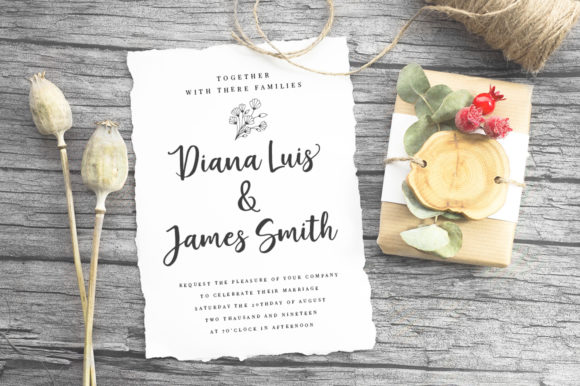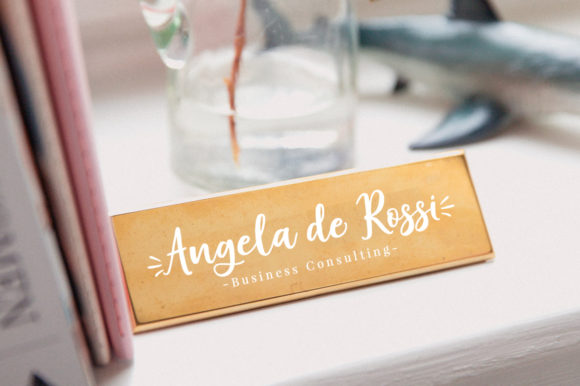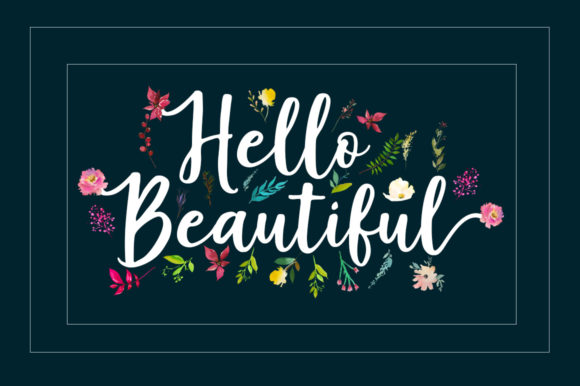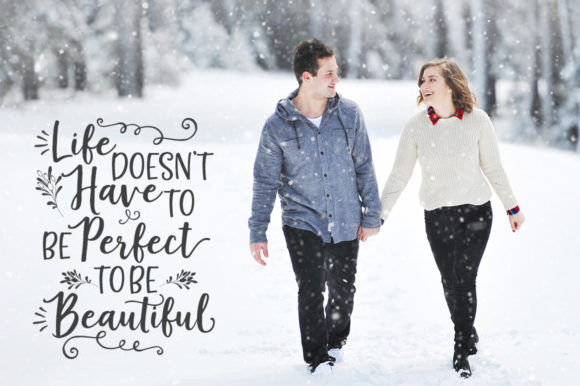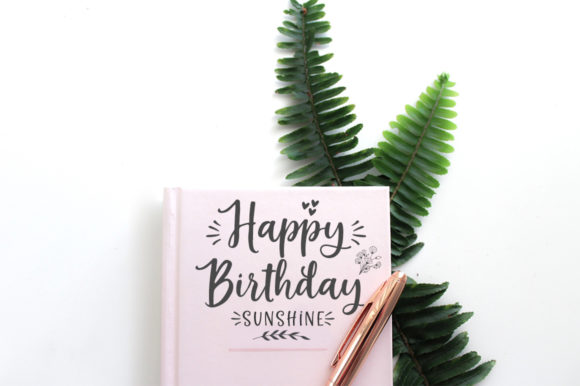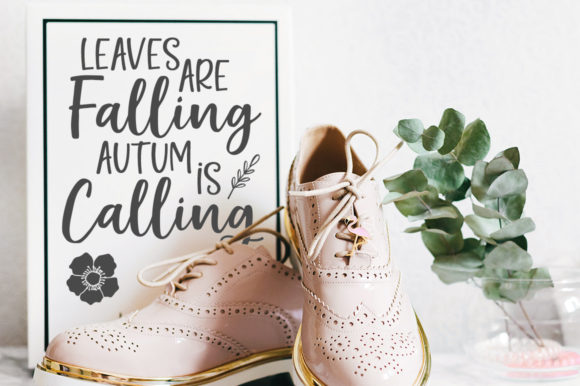
Introduction to Lucky Diamond Font
Have you ever been in a creative zone, staring at a blank canvas, and suddenly, the perfect idea strikes? For designers, those moments are like gold dust, and the right font can make all the difference. That’s where the enchanting Lucky Diamond Font comes in – a beautiful handwritten font that can transform any design project into a stunning piece of art.
As a valuable design resource, Lucky Diamond Font is a treasure trove for creatives seeking to add a personal touch to their projects. With its unique feel and elegant charm, this font is sure to elevate any design, whether it’s a logo, a poster, or a social media graphic. And the best part? It’s available for a free download, making it an accessible high-quality asset for designers of all levels.
Lucky Diamond Font
- Unique blend of elegance and playfulness, making it ideal for creative projects that require a touch of sophistication.
- High-quality design, suitable for a variety of applications, including print and digital media.
Honest Review: Lucky Diamond Font
As a designer, I’m always on the lookout for high-quality design resources to elevate my creative projects. The Lucky Diamond Font caught my eye with its unique, eye-catching design.
- ✨ Unique and stylish design that adds a touch of luxury to any project
- ✨ Transparent background makes it easy to overlay on any image or color
- ✨ High-quality font that looks great at any size or resolution
- ⚠️ Limited font styles and variations, which may not be suitable for complex designs
- ⚠️ May not be as versatile as other fonts, particularly for projects with a lot of text
Overall, I’m impressed with the Lucky Diamond Font. While it may not be perfect for every project, it’s a great addition to any designer’s toolkit. The unique design and high-quality rendering make it a great choice for creative projects that need a touch of luxury.
The Lucky Diamond Font is a high-quality design resource ideal for creative projects that require a touch of elegance and sophistication. This font is available for free download, making it an excellent addition to any designer’s toolkit.
Tips for Getting the Most Out of Lucky Diamond Font
For optimal results, use the Lucky Diamond Font on a transparent background to create a striking design. Experiment with different font sizes and styles to add depth and visual interest to your project.
The Lucky Diamond Font is ideal for:
- Personal branding and logos